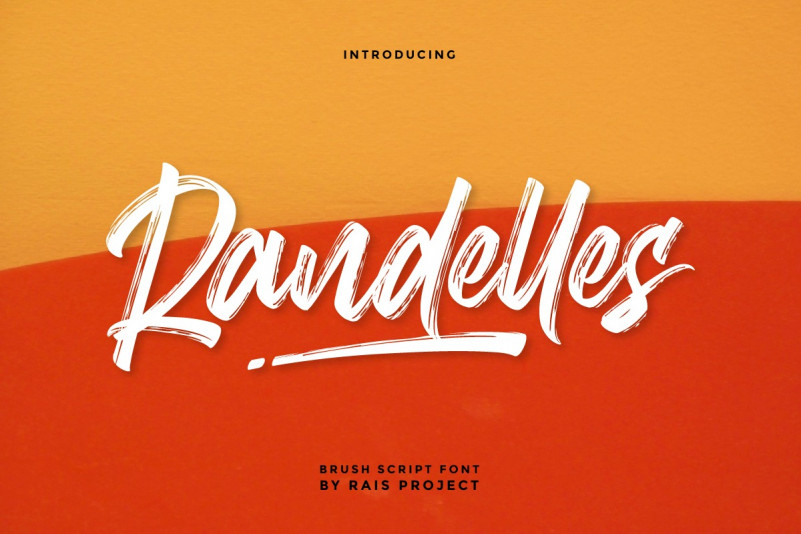
Randelles Brush Font
Randelles Font is a textured brush font, designed by Rais Project. It is a brush calligraphy font with exclusive style that is great for vintage, old style, wedding, Movie, Game, Magazine, Music, Video, Sports, Racing etc